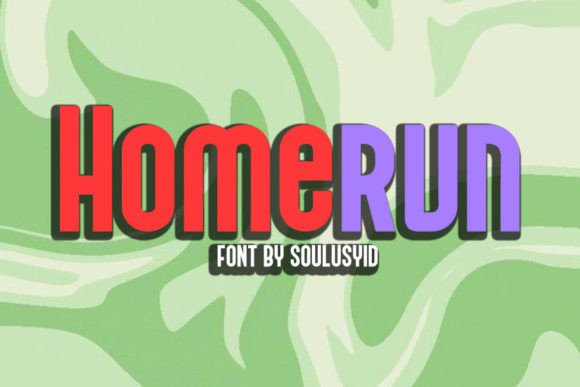
Behold the Homerun Font, a typographic masterpiece crafted to leave an indelible mark on your creative endeavors. This sans-serif font exudes boldness and sophistication, commanding attention with its sharp edges and sleek lines. Prepare to be captivated by its dynamic presence, poised to elevate your designs to new heights of excellence.
Homerun Font, the brainchild of the visionary SoulusYid, is more than just a font; it's an artistic expression waiting to be unleashed. Its modern aesthetic radiates confidence and power, making it the perfect instrument to convey your message with unwavering impact. Whether you seek to craft striking logos, captivating headlines, or compelling website designs, Homerun Font will rise to the occasion, leaving an indelible mark on your audience.
Step into a world of limitless possibilities with Homerun Font. Unleash your creativity and watch as your designs transform into captivating masterpieces. Its versatility transcends boundaries, seamlessly adapting to a myriad of projects, from elegant invitations to dynamic social media posts. With Homerun Font as your ally, your imagination will soar, and your designs will take on a life of their own.
Homerun Font possesses an inherent adaptability that makes it a perfect fit for any project seeking to leave a lasting impression. Its unwavering strength and clarity shine through, ensuring that your message cuts through the noise and resonates with your audience. Harness the power of Homerun Font to craft designs that captivate and inspire, leaving an imprint that lingers long after the page is turned.
Join the ranks of discerning designers and creatives who have discovered the transformative power of Homerun Font. Embrace the opportunity to elevate your projects with a font that speaks volumes. As you effortlessly navigate through your creative journey, trust Homerun Font to be your steadfast companion, propelling you towards design greatness.